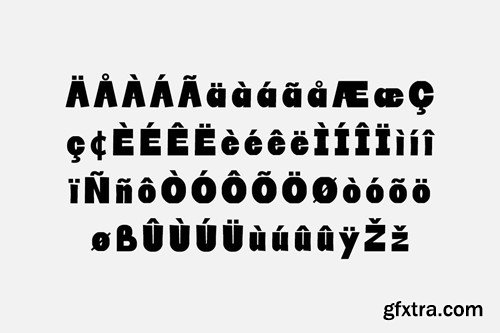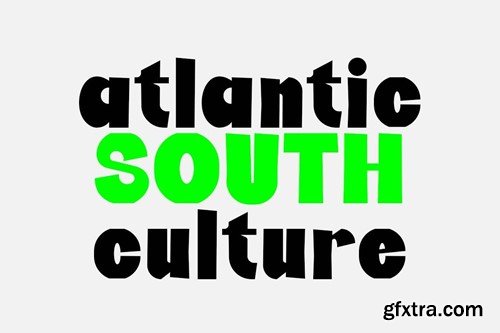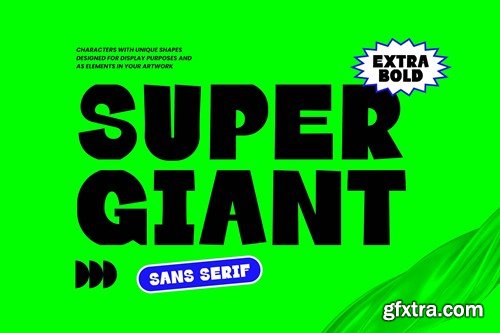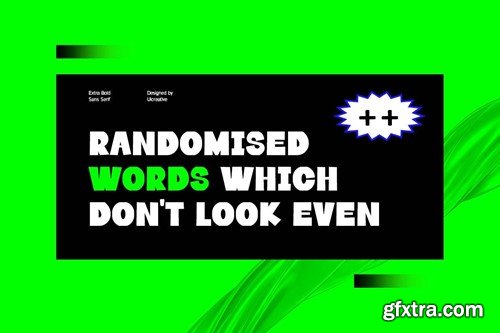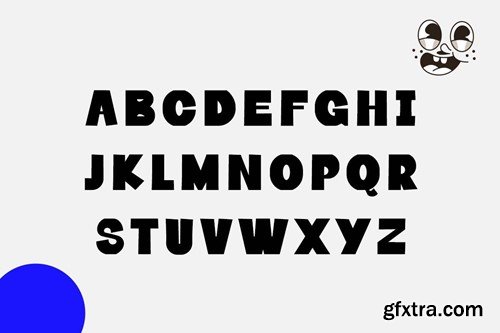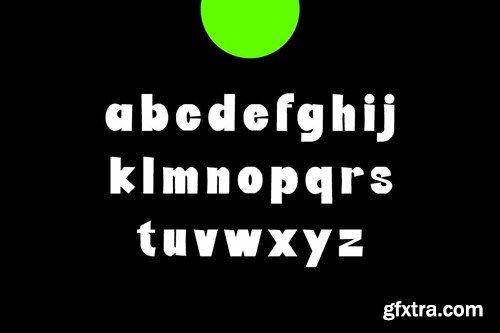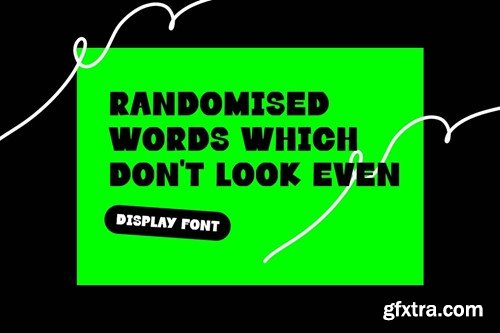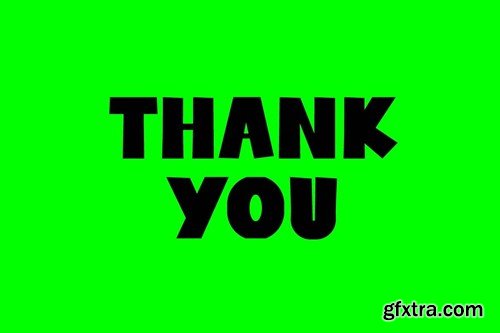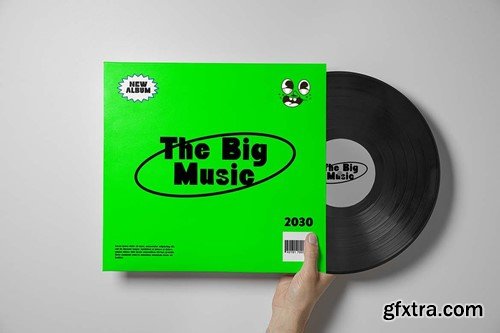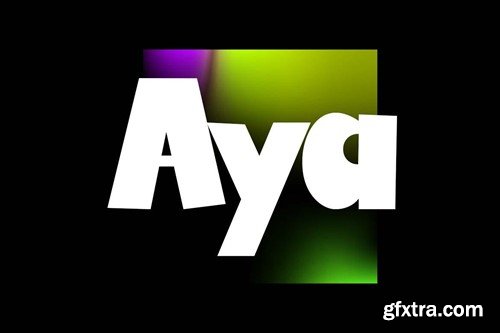
SUPER GIANT Extra Bold Sans Serif Font 9QFNQSR
SUPER GIANT Extra Bold Sans Serif Font
Introducing our new product the name is SUPER GIANT Extra Bold Sans Serif Font. SUPER GIANT Extra Bold Sans Serif Font that feels beautiful classy, elegant, and modern. This font is perfectly suited for a wide variety of projects, such as signature, stationery, logo, wedding, typography quotes, magazine or book covers, website headers, branding, packaging design, and more. Also, fashion-related branding or editorial design displays both masculine and feminine qualities.